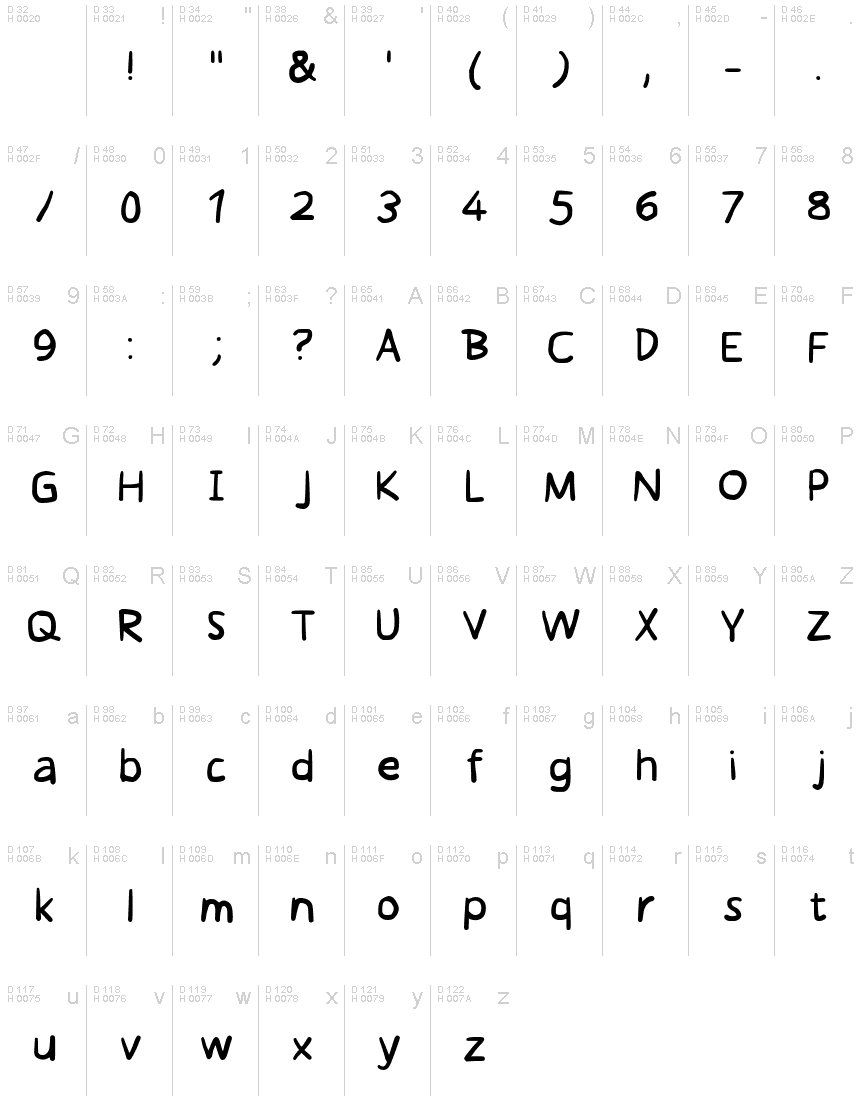
Ices When Real Regular
Ices When Real, designed by J. Font, is a captivating handwritten font that brings a touch of authenticity to any project. With its semi-expanded width, this font exudes a harmonious balance between legibility and creativity. Perfect for branding materials, such as logos and packaging designs, Ices When Real adds a personal and unique feel to your products. Additionally, it lends itself beautifully to invitation cards and wedding stationery, where its whimsical charm creates an enchanting atmosphere. Let Ices When Real transform your projects into captivating works of art with its handcrafted allure.